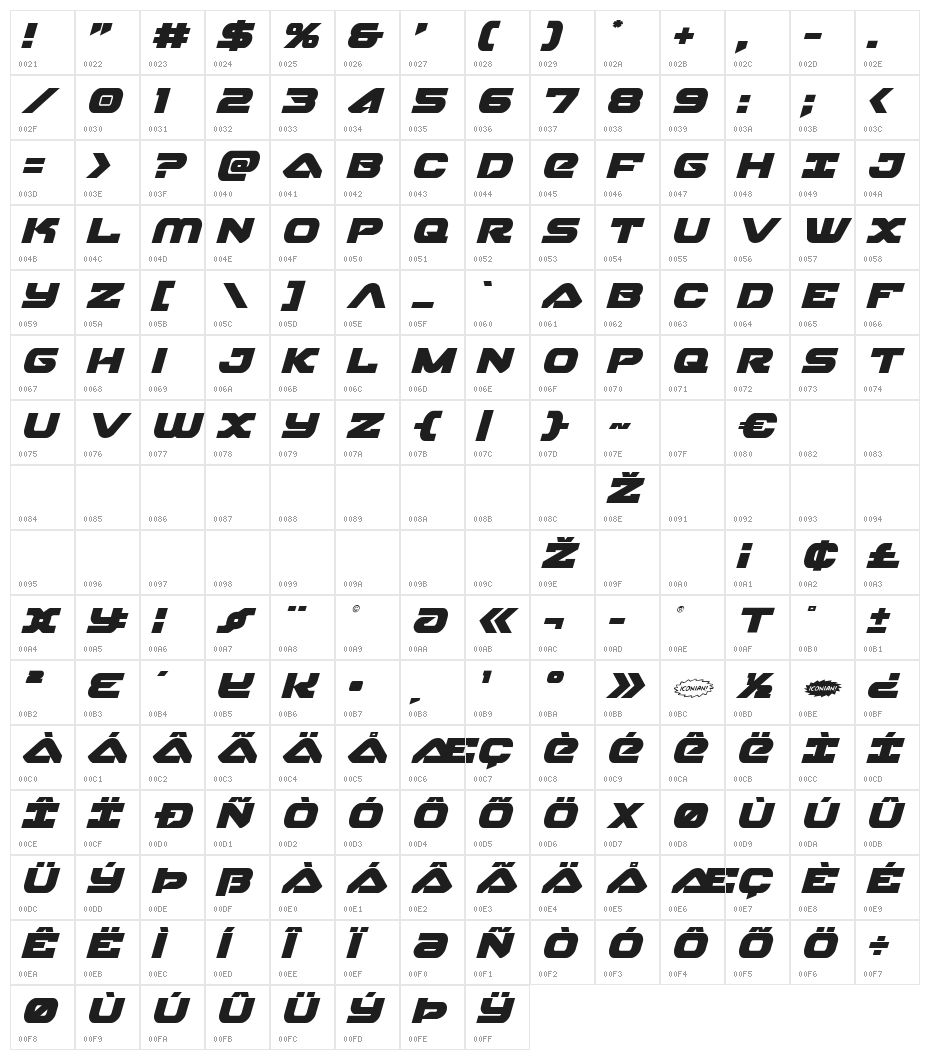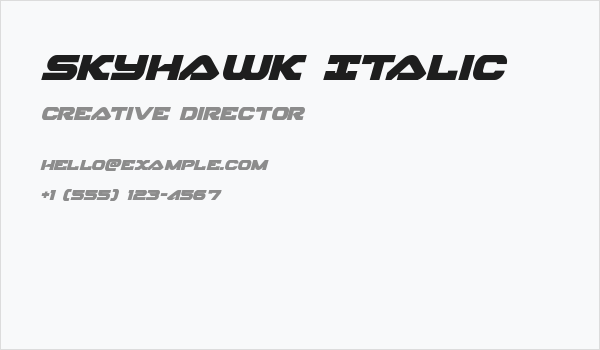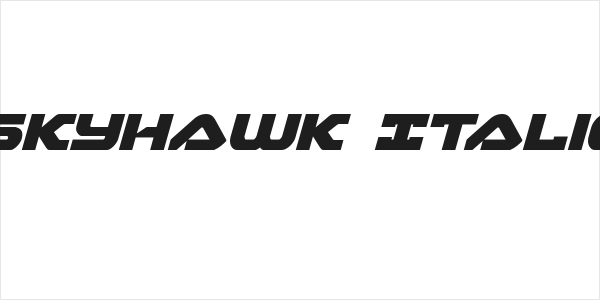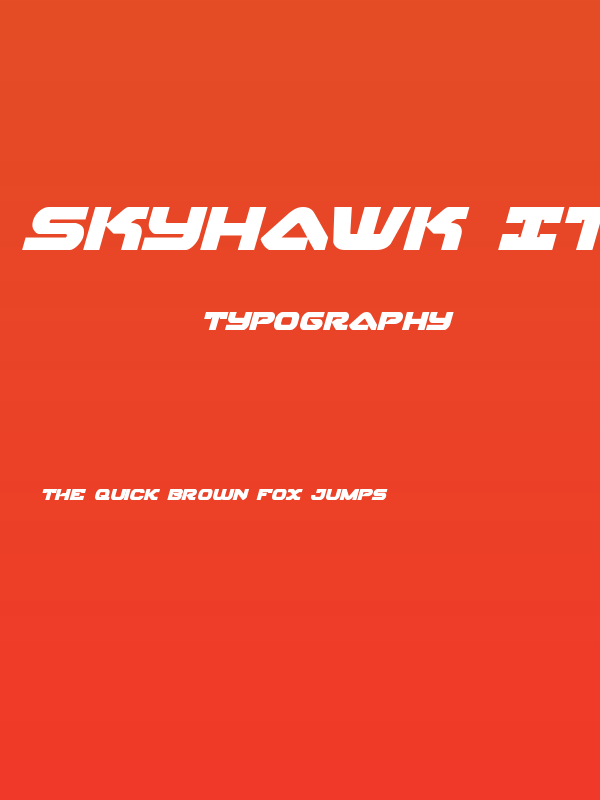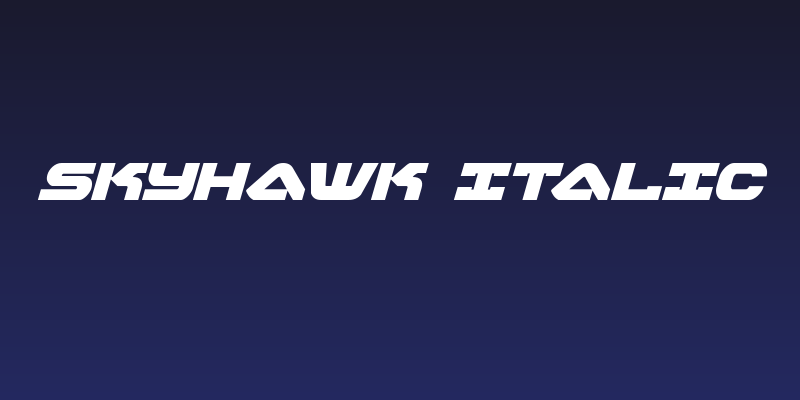
Skyhawk Italic Font
Skyhawk Italic Description
This font features a bold and dynamic style with a strong italic slant, giving it a sense of motion and energy. The characters are wide and robust, with sharp angles and clean lines that convey a futuristic and sporty aesthetic. The uppercase and lowercase letters maintain a consistent design, while the numbers and special characters complement the overall look with similar boldness and angularity. This font is ideal for projects that require a modern and impactful appearance, making it suitable for branding, sports-related designs, and dynamic headlines.
| Proposed Projects | Ideal for sports branding, dynamic headlines, and modern logos. |